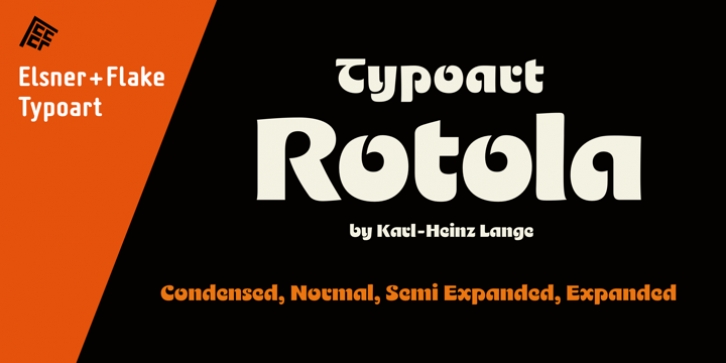
Rotola TH Pro downloadDesigner: Karl-Heinz Lange
Publisher: Elsner+Flake
Karl-Heinz Lange presented his first drafts of Rotola during a Typoart® type design competition in 1985 under the name “Boutique”. A year later, Norbert du Vinage, former manager of the type design department, integrated “Boutique” in his production plan. Due the Fall of the Wall, it took about 18 years until Lange finished this font family in cooperation with Elsner+Flake.
Karl-Heinz Lange was born on July 29, 1929 in Wiesenkirch in West Prussia. He was enrolled in the Humanistic Gymnasium at Elbing from 1939 to 1945 and changed to the Wernigerode High School after his family had to flee to central Germany. From 1949 to 1951, Karl-Heinz Lange studied at the Werkkunstschule Halle, where one of his teachers was Professor Post. After 1951, he continued his studies at the Hochschule for Grafik und Buchkunst in Leipzig with an emphasis on book design. He received his diploma in 1955 with distinction based on his design of a hot metal typeface.
From 1956 to 1961, Karl-Heinz Lange worked as a lecturer for Type and Commercial Graphics at the Hochschule für Angewandte Kunst in Magdeburg. From 1961 to 1963, he taught at the Hochschule für Grafik und Buchkunst in Leipzig, and finally as a freelance commercial designer in Magdeburg. He worked on a variety of assignments, one of which was the design of trick films. From 1969 to 1976 he took the position of Artistic Director of the Henschelverlag, Berlin; from 1976 to 1994 he was Professor of Type and Typography at the Fachschule für Werbung und Gestaltung in Berlin; and, until 2004, he taught at various institutes for advanced professional education. From 2005 to 2007 he taught at the Fachhochschule Magdeburg/Stendal.
Karl-Heinz Lange was awarded the second prize at the “International Type Design Contest 1971” for a headline typeface, and, in 1984, at the XI. Biannual of Graphic Design in Brno, he won a Silver Medal for the design of his typeface family Publica. He created the telephone book typeface Minima and re-designed the Typoart Super Grotesk® (Arno Drescher, 1930) as well as the Newspaper typeface Magna® by Herbert Thannhaeuser for the use on digital typesetting systems.
To the day of his death on June 29, 2010, Karl-Heinz Lange lived and worked as a type designer. Among others, he closely followed the designs of the typefaces which were developed under his guidance for Typoart®: "Publica®", "Typoart Super Grotesk®" and "Minima®" which he launched as “Publicala”, “Minimala” and “Superla” in 2009. In cooperation with Elsner+Flake, he developed the Typeface family “Rotola” between 2006 and 2009 as well as the script families of the "Viabella®" series. To the end, he followed the development of his first typeface, the “Diplom Antiqua”, which he also wanted to bring to market together with Elsner+Flake.